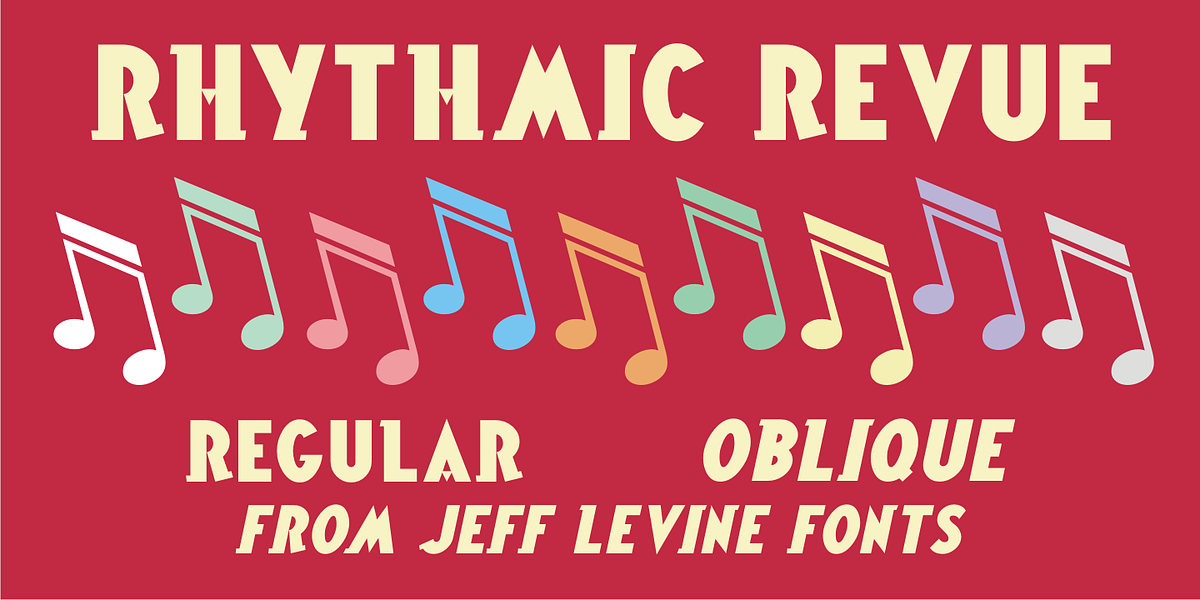
Rhythmic Revue JNL
The vintage sheet music for “Between the Devil and the Deep Blue Sea” yielded another bit of Art Deco-era lettering perfect for developing into a digital font.
This time it wasn’t the song title, but rather the name of the show it was from serving as the type inspiration…the Cotton Club’s 1931 revue “Rhythm-Mania”.
Harlem’s Cotton Club was an “exclusive, whites only” club; both famous for its talent and shows, yet infamous for hiring black acts but not allowing black patronage.
On the sheet music, the show title was hand lettered in a bold, slightly stylized fashion which became the basis for Rhythmic Revue JNL; available in both regular and oblique versions.